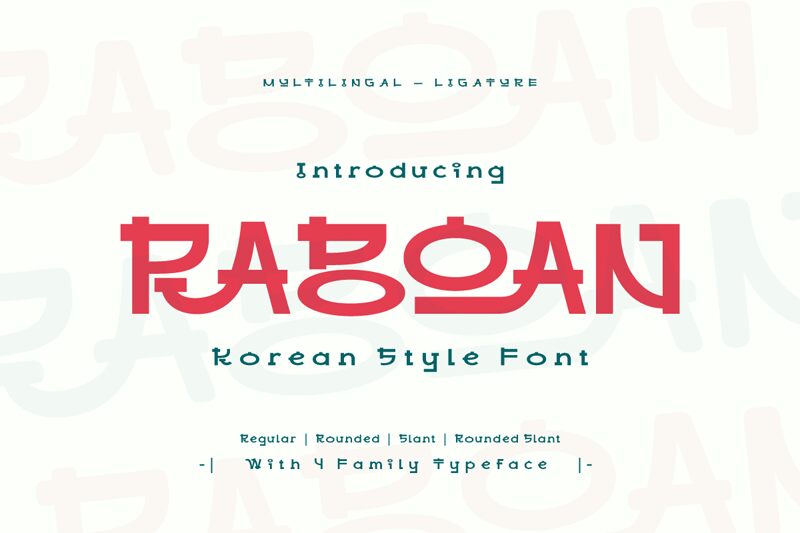
Raboan font family by twinletter is a foreign-styled, artistic, free personal font duo. Structured and modernist, the typeface adopts a contemporary style with a slight twist to make every typographical development unique. Created for a target audience passionate about aesthetics, its geometric-themed letters offer unexpected shapes and unusual angles that engage every viewer each time.
As a versatile font, it can easily become the highlight of well-designed packaging and branding projects for logos, labels, product tags, and stationery designs. Add an unparalleled charm to websites and blogs or use it for banners, headlines, or covers.